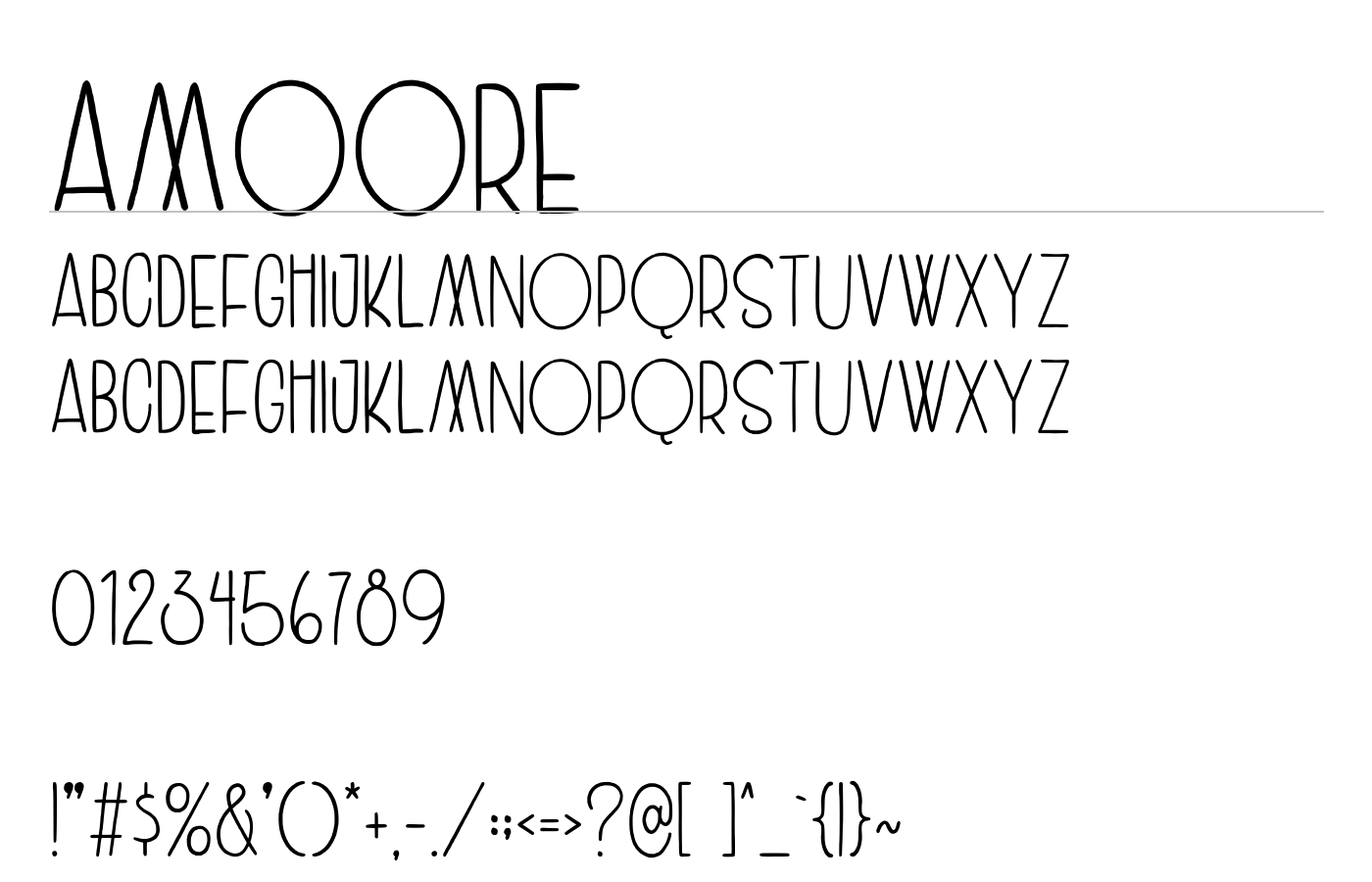
Amoore is a slender, playful sans serif font with tall, narrow letterforms that give it a quirky, hand-drawn feel. Its thin strokes and irregular shapes make it feel light and friendly, perfect for creative projects, casual branding, or eye-catching headlines that want a touch of personality without losing readability. This font works best in designs where a unique, informal style is desired, such as invitations, posters, or artistic logos.
Amoore Font
About Amoore Font
| Font family | Amoore Font |